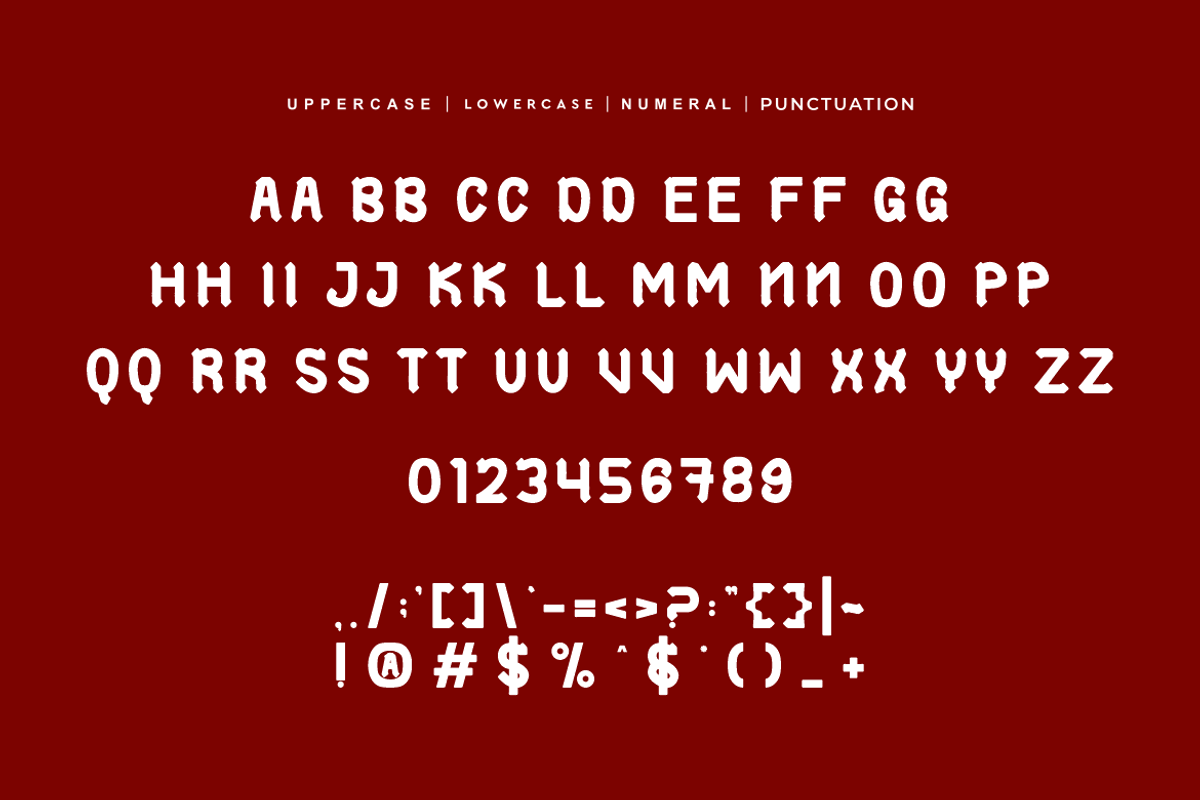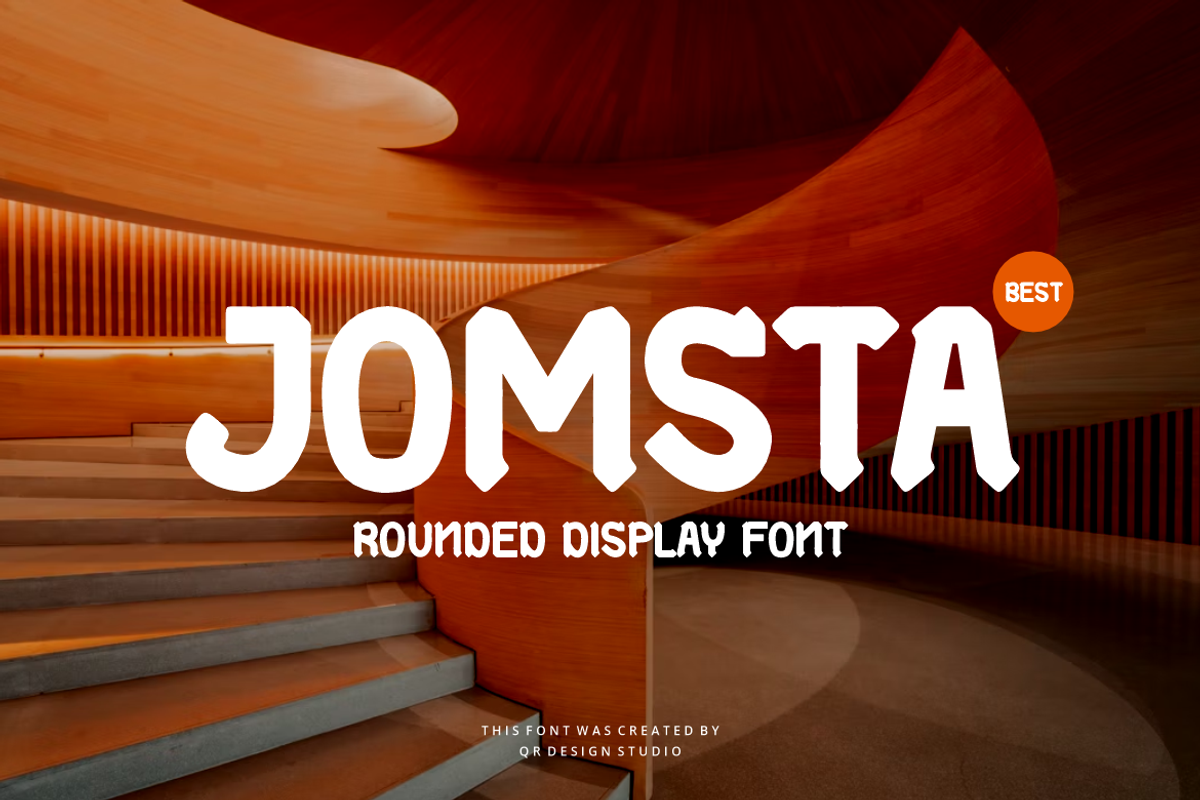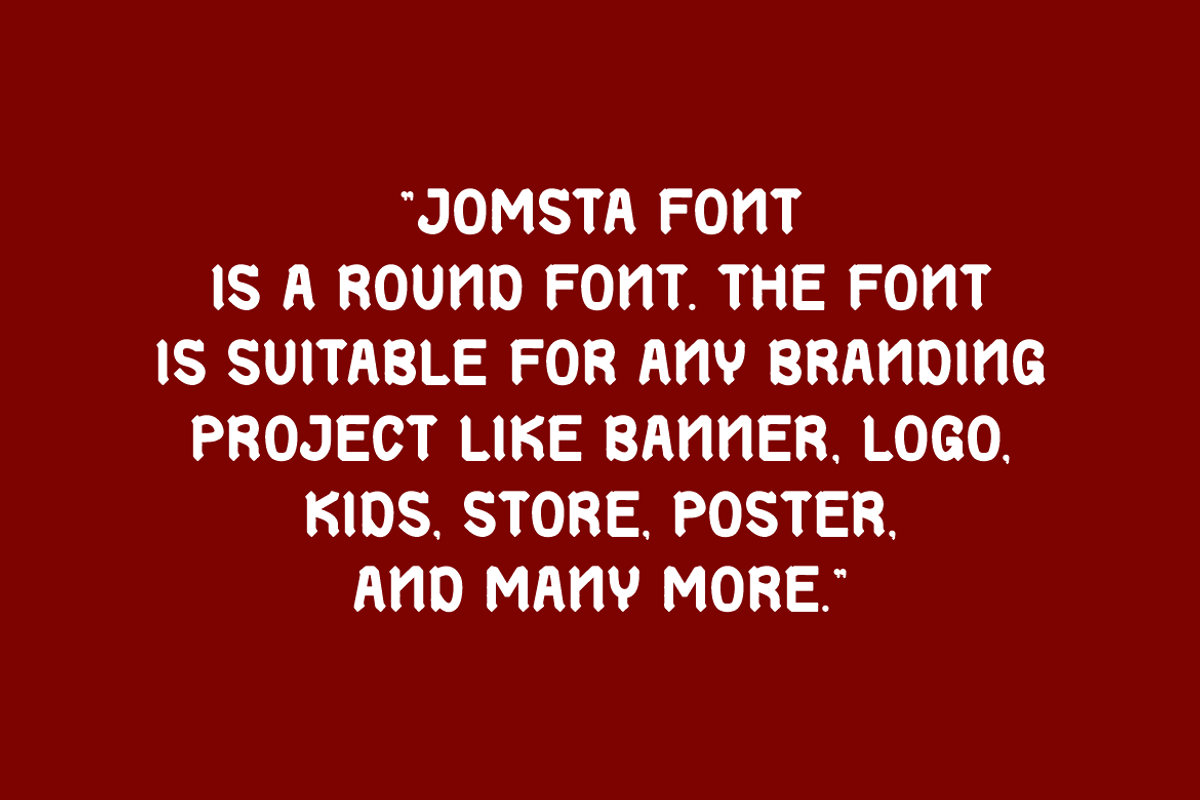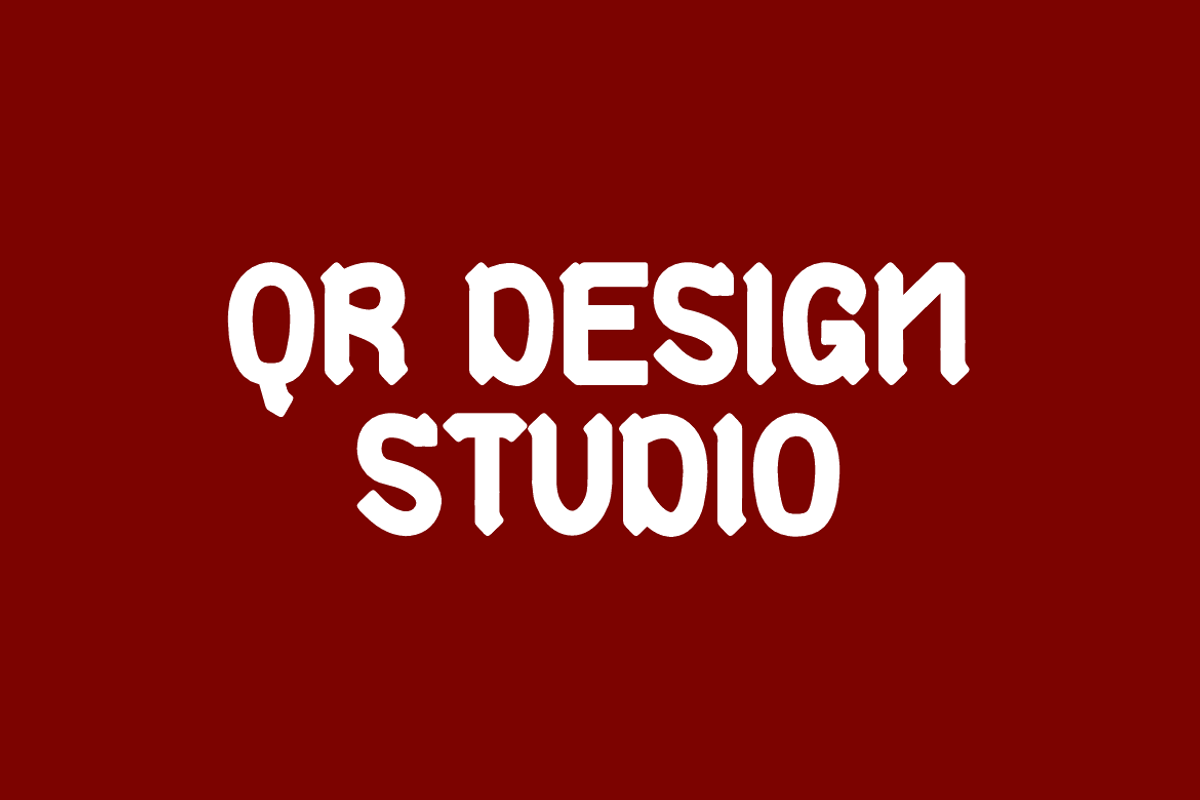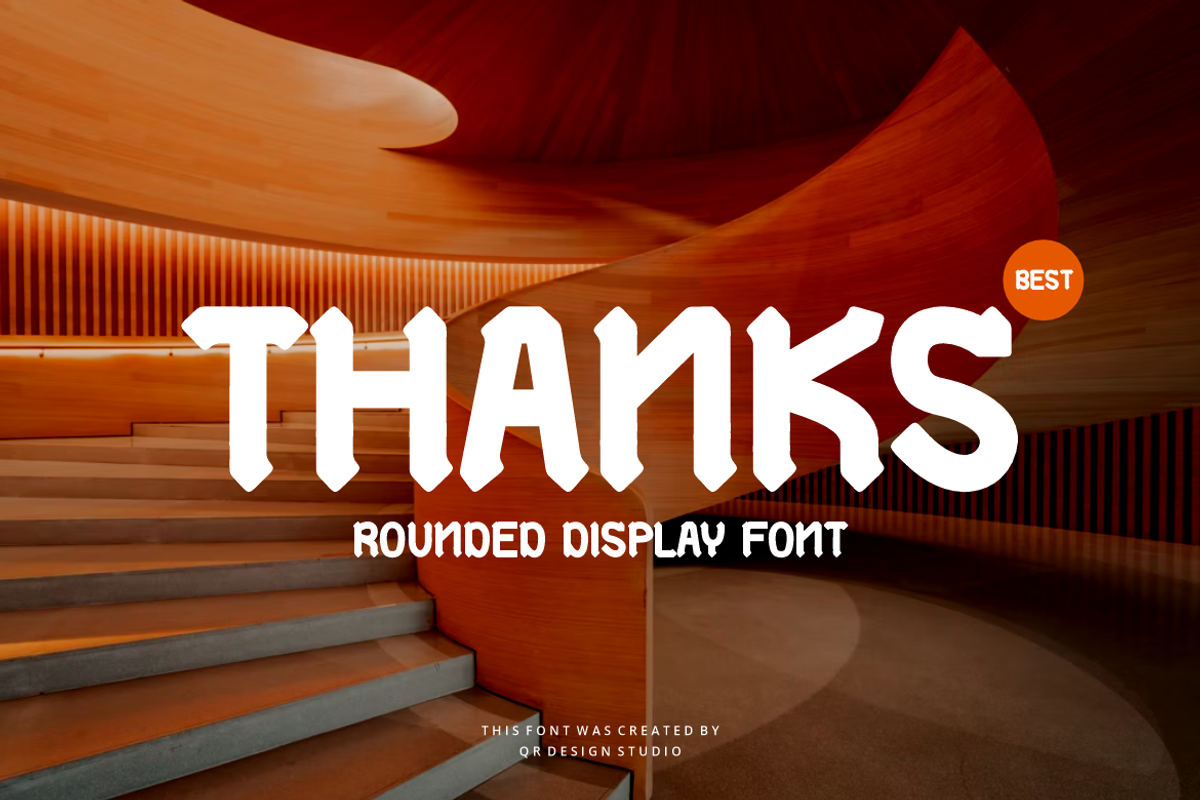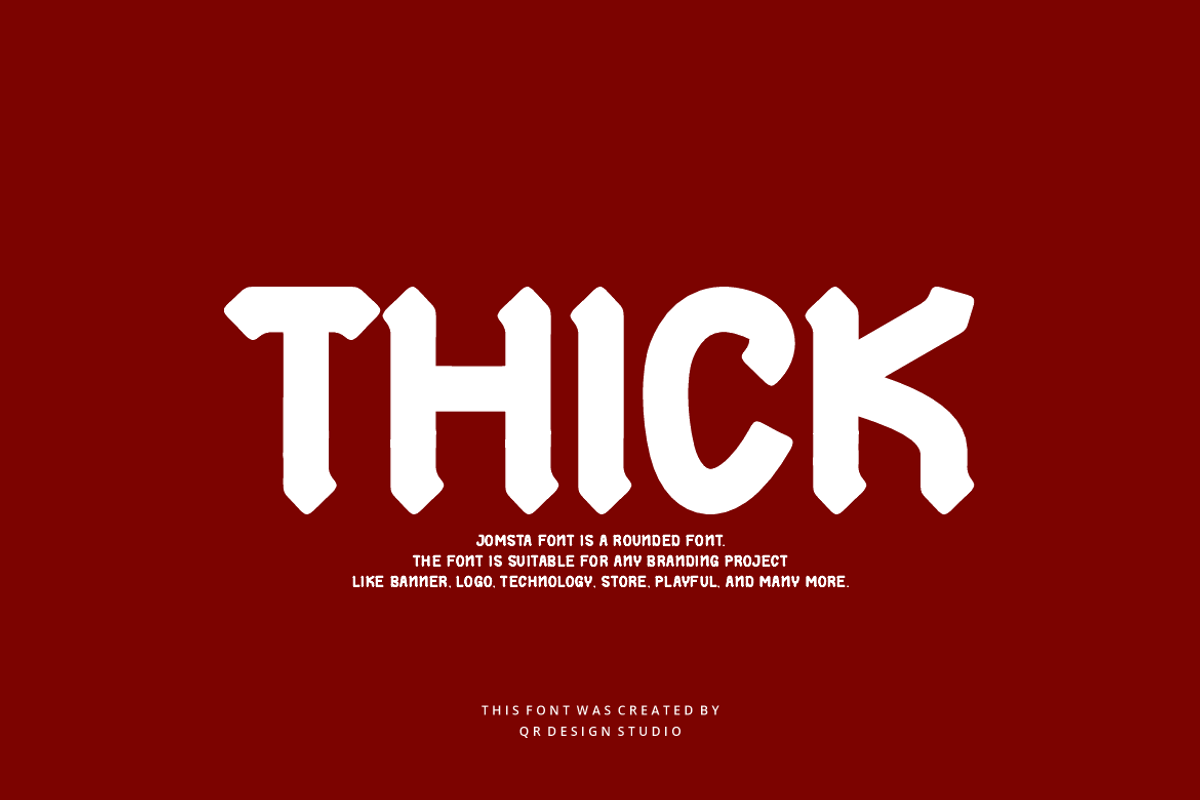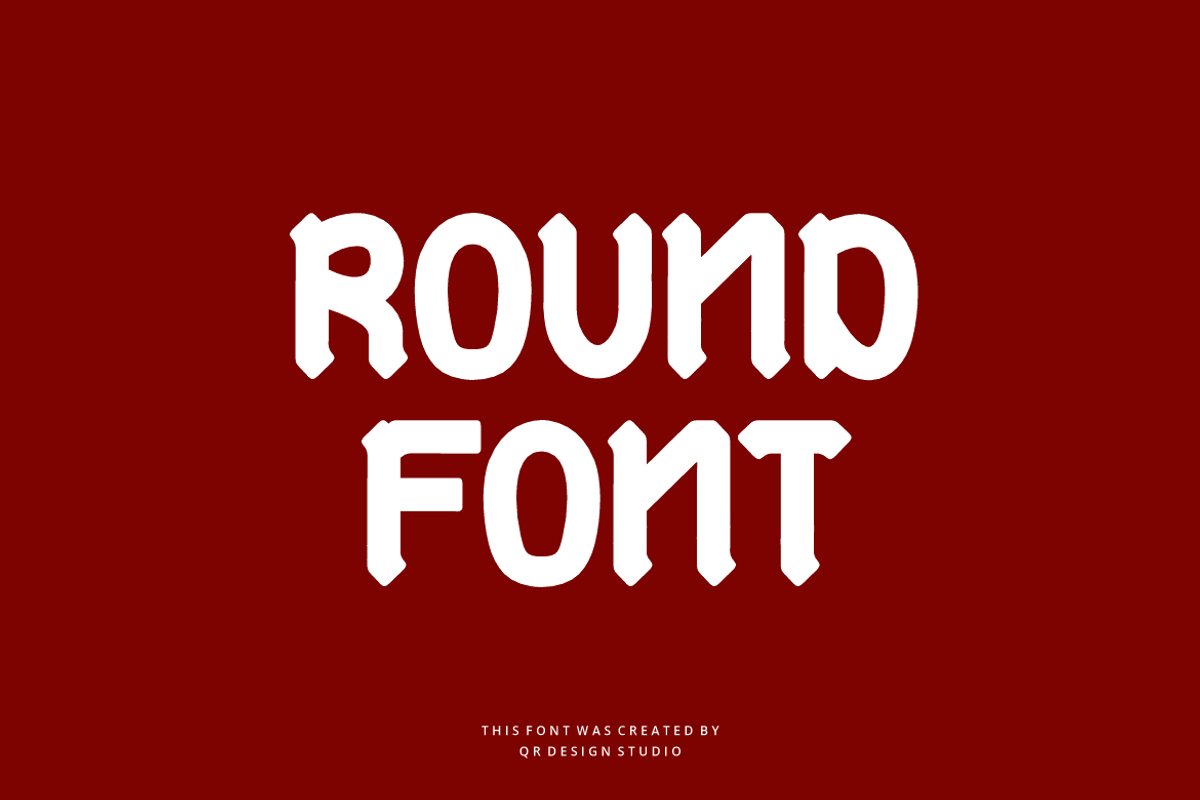
Jomsta - Rounded Font
Jomsta Font is a bold and authentic display font. The font is suitable for any branding project like poster, logo, food, and many more. Outstanding in a wide range of contexts.